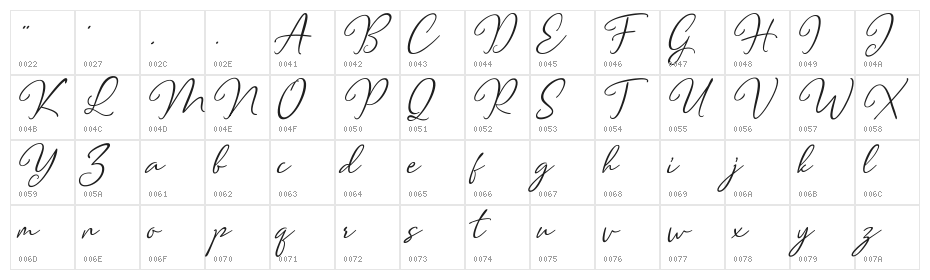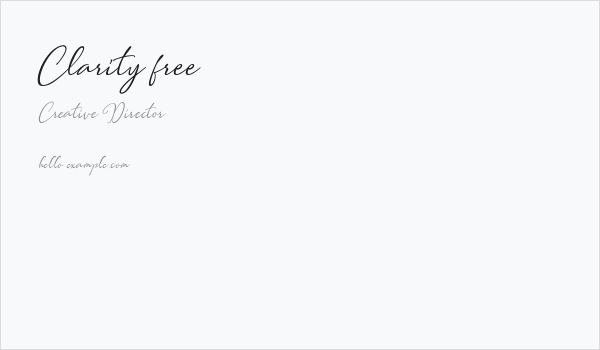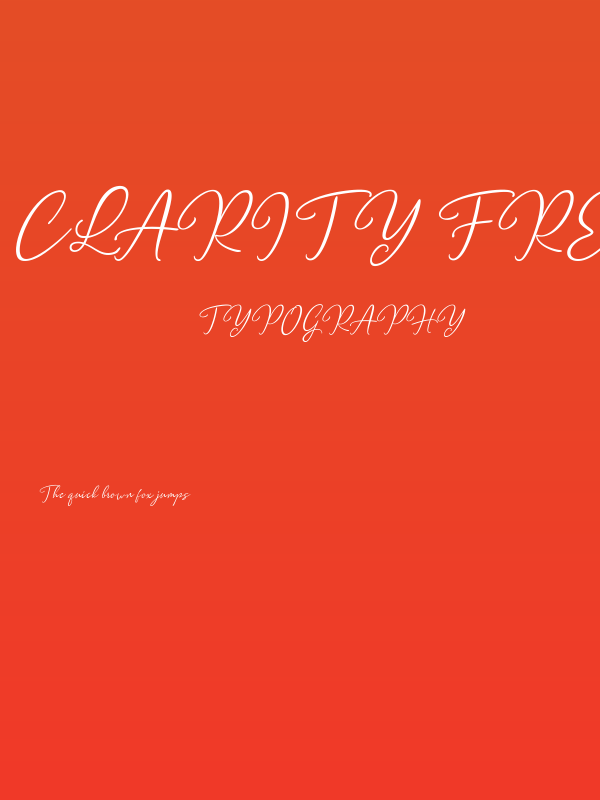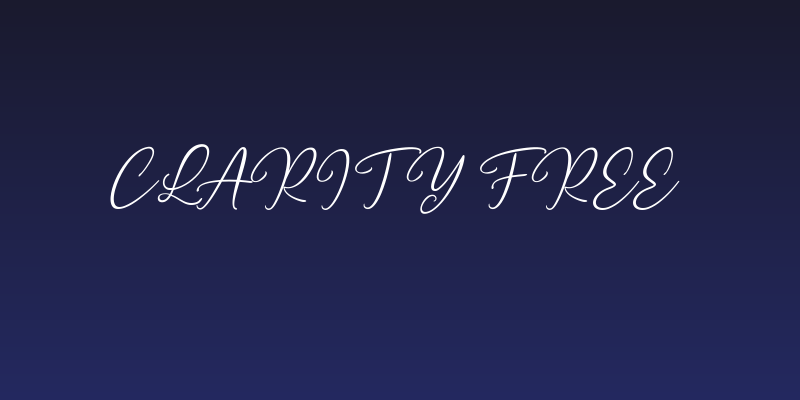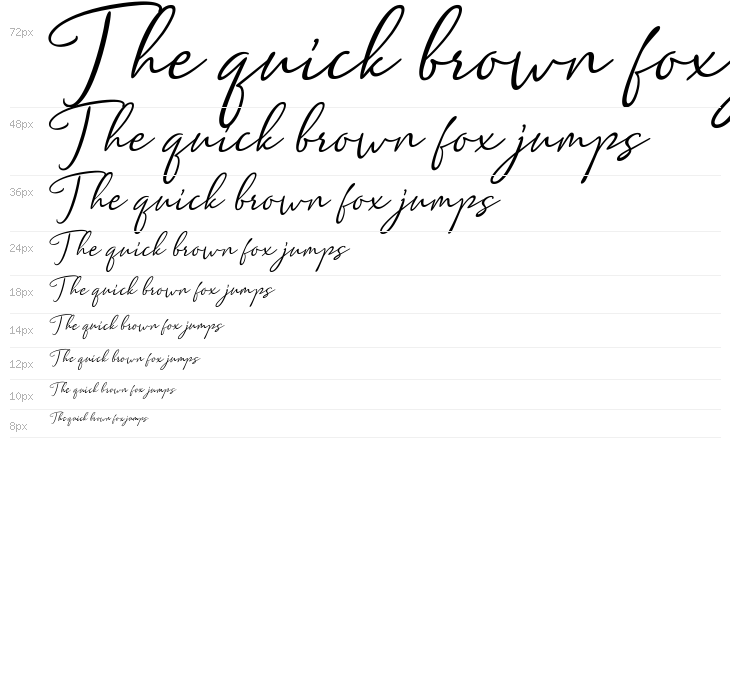
Clarity free Font
Clarity free Description
This elegant script font features fluid, cursive strokes that convey a sense of sophistication and grace. The uppercase letters are characterized by their sweeping curves and delicate loops, while the lowercase letters maintain a consistent flow with slightly exaggerated ascenders and descenders. The font exhibits a harmonious balance between thick and thin strokes, adding a touch of refinement to its overall appearance. The characters are well-spaced, allowing for readability without compromising the artistic flair. This font is ideal for projects that require a personal, handwritten touch, such as invitations, greeting cards, or branding materials.
| Use Case | Invitations, Greeting cards, Branding |
| Proposed Projects | Ideal for wedding invitations, greeting cards, branding, and elegant signage. |